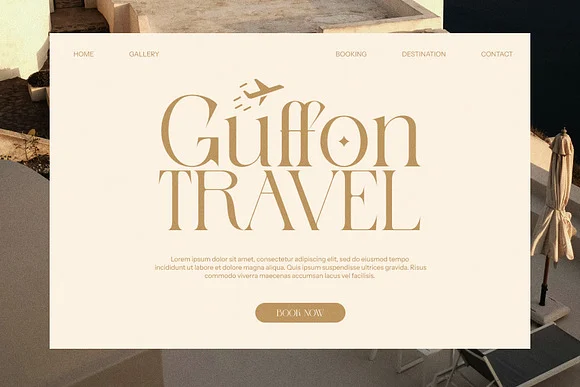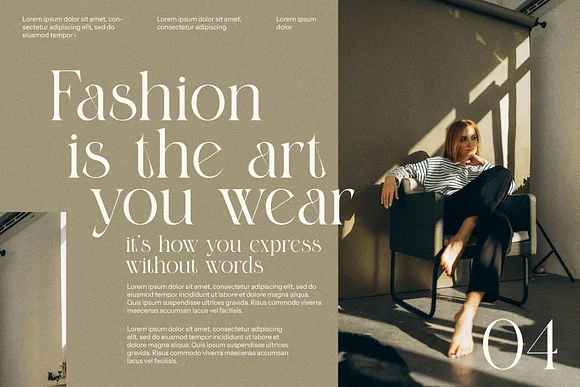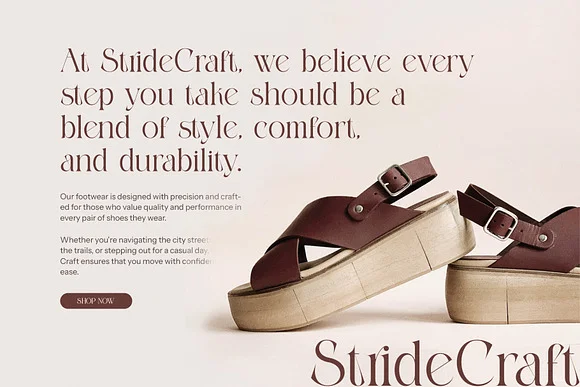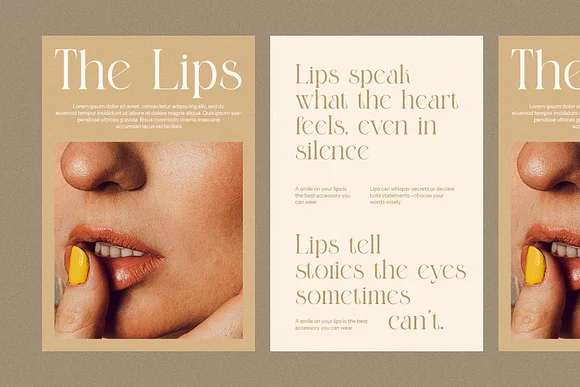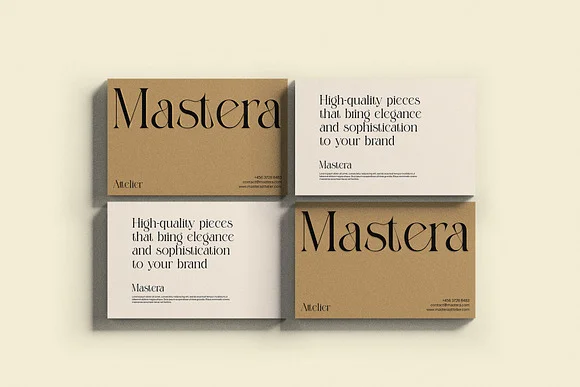
Gotam Elegant Serif Font
Designers reaching for Gotam Elegant Serif find a typeface that holds up across diverse media — print, web, and motion.
Its proportions suit a wide range of uses: website headers, printed flyers, restaurant menus, annual reports, and product packaging.